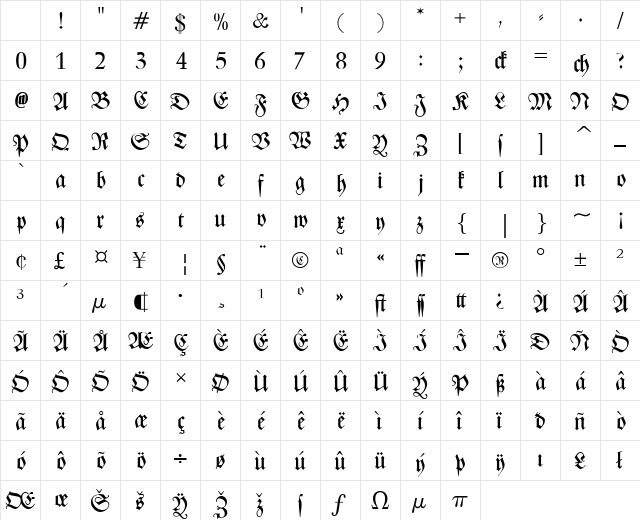
Complete Zentenar Fraktur Regular glyph index. Displaying only characters natively supported by Zentenar Fraktur Regular font.
Zentenar Fraktur draws on the rich tradition of blackletter calligraphy, with dense, angular strokes that evoke medieval manuscripts and old-world craftsmanship.
Font Pairing: Pair with a clean neutral sans-serif for body copy to let Zentenar Fraktur's character lead without overwhelming the composition.
Pro Tip: Reserve Zentenar Fraktur for display and logo use - pair it with a clean sans-serif for body copy to prevent the composition from feeling oppressive.